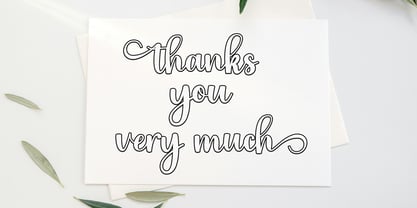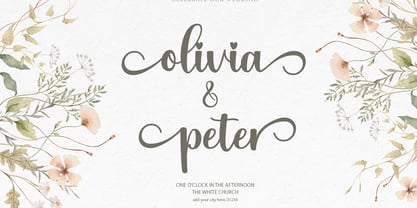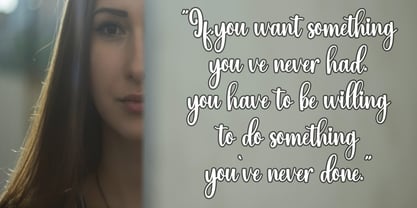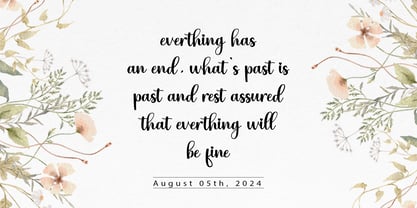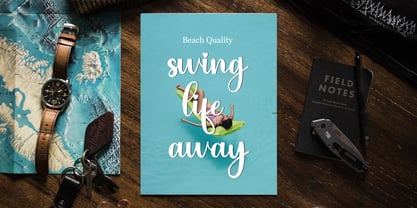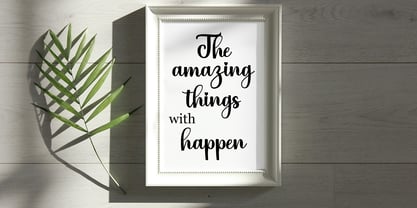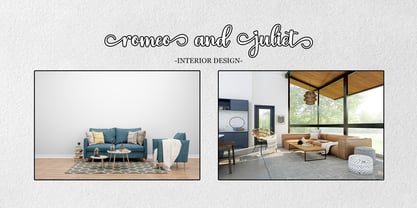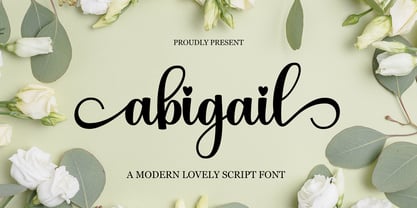
Abigail Modern
by Naiza Studio
The Abigail Modern Font Family was designed by Ata Illah and published by Naiza Studio. Abigail Modern contains 1 styles.
Abigail Modern is a modern calligraphy design including Regular. This font is casual and beautiful with swashes. Can be used for various purposes such as logos, product packaging, wedding invitations, branding, headlines, signage, labels, signatures, book covers, posters, quotes, and much more.
Designers: Ata Illah
Publisher: Naiza Studio
Foundry: Naiza Studio
Design Owner: Naiza Studio